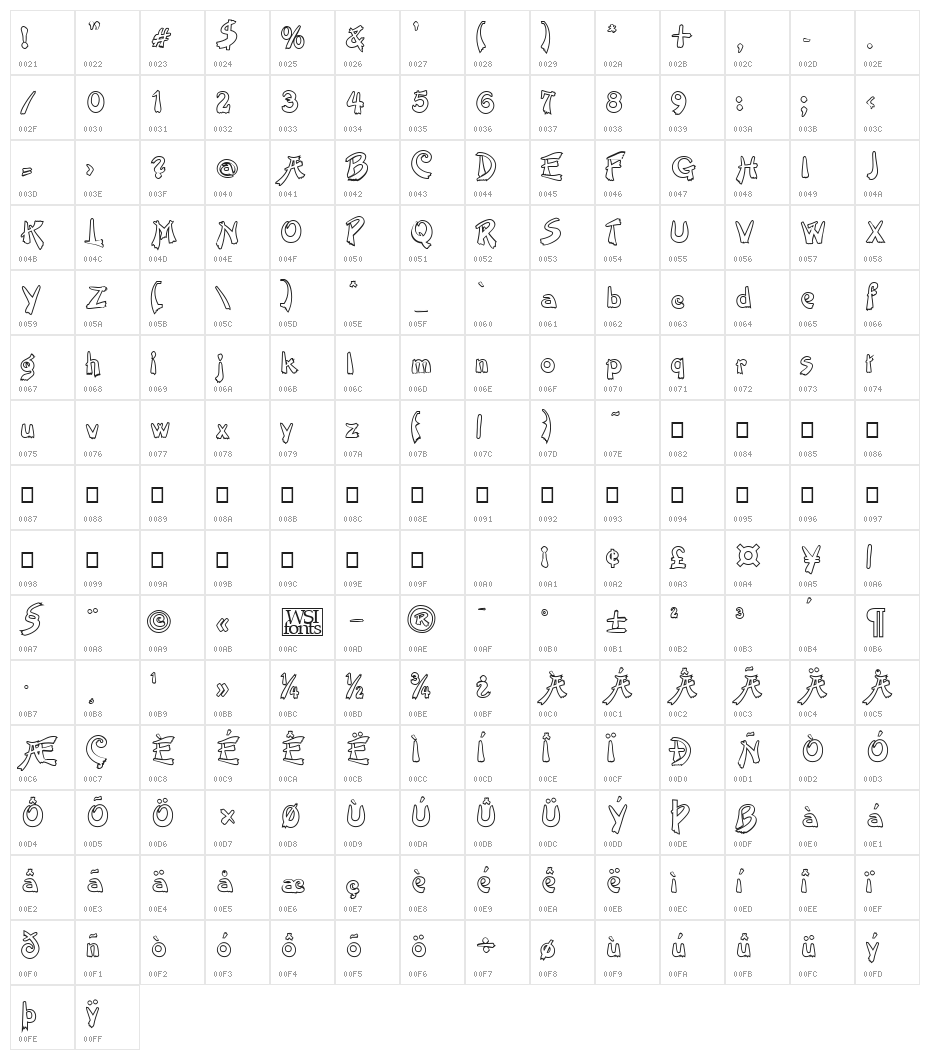
Rival Font
✎ Outline
| Anwendungsfall | Headlines, Posters, Logos |
| Vorgeschlagene Projekte | Ideal for Halloween-themed designs, comic book titles, children's book covers, or any project needing a fun and dynamic look. |